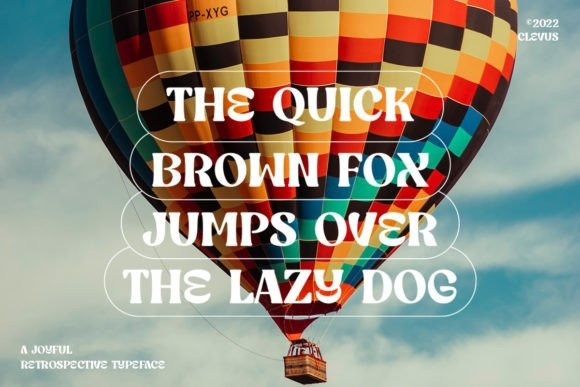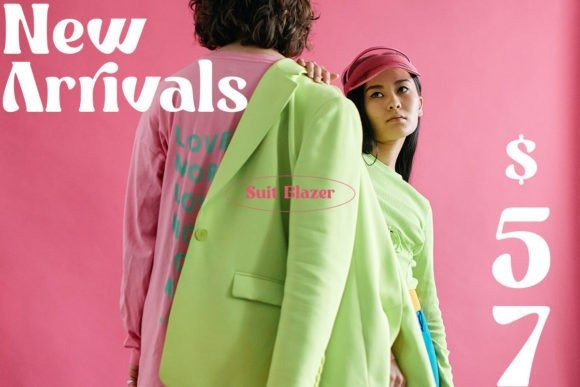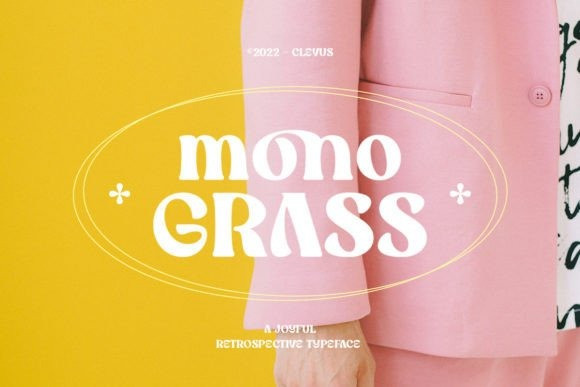
Mono Grass Font
Mono Grass Font is a modern display font that brings a joyful and retro look to its attention. Due to its uniquely crafted style, the font was specially created for projects that need a chic look to their designs. It is also PUA encoded, which means you can easily access all of the glyphs and swashes!